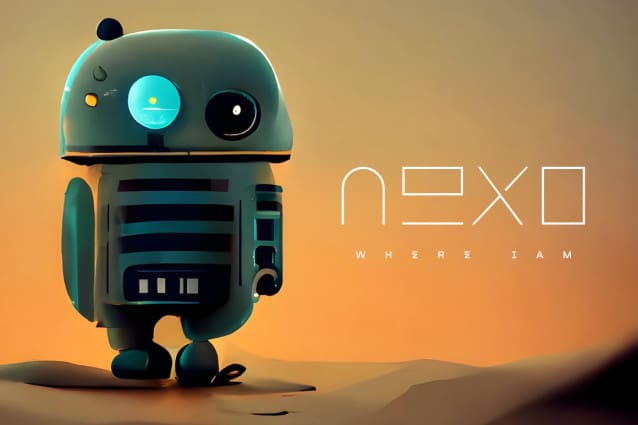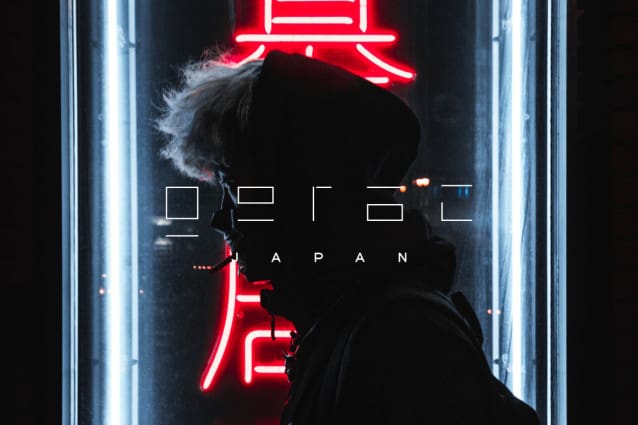
TOBMINX DISPLAY FONT
TOBMINX DISPLAY FONT – it’s a rhythmic expression of innovation, conveying a sense of fluidity and progression. Its bold strokes and geometric shapes evoke a sense of modernity, making it the perfect choice for projects that demand a forward-thinking aesthetic